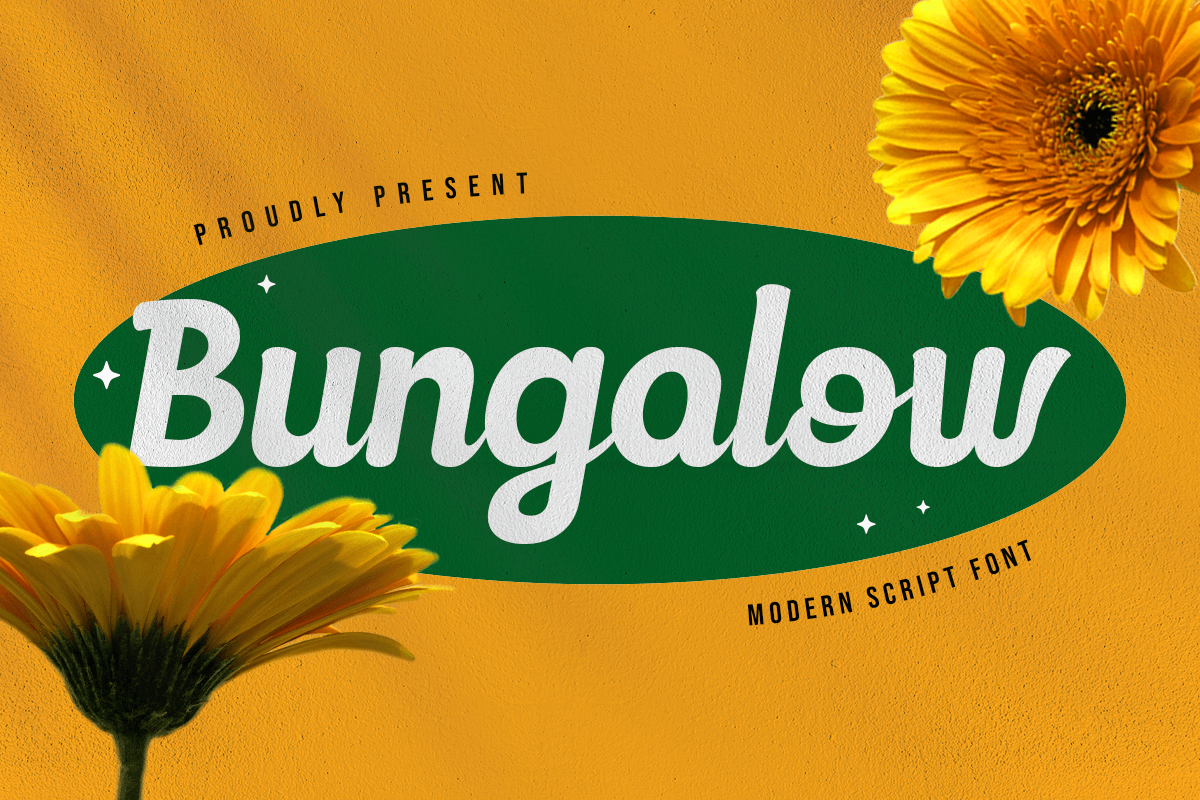
Bungalow
-Modern Script FontBungalow is a modern script font that brings an air of elegance and charm to any project. With its smooth, flowing strokes and carefully crafted characters, Bungalow is ideal for creating chic logos, stylish branding, or elegant invitations. Its graceful curves add a handwritten touch that feels both personal and refined, making it a versatile choice for any creative endeavor.
Inspired by the effortless beauty of calligraphy, Bungalow captures the essence of modern sophistication. It’s designed to convey a sense of warmth and fluidity, while still maintaining a polished look. Perfect for wedding invitations, signature logos, or fashion branding, this font adds a personalized yet professional touch to your designs. Whether you're designing for high-end products or creating memorable keepsakes, Bungalow’s modern script style ensures your work stands out. Its graceful lines and artistic flair make it a font that seamlessly blends elegance with contemporary appeal.
Smooth Connected Characters Ready